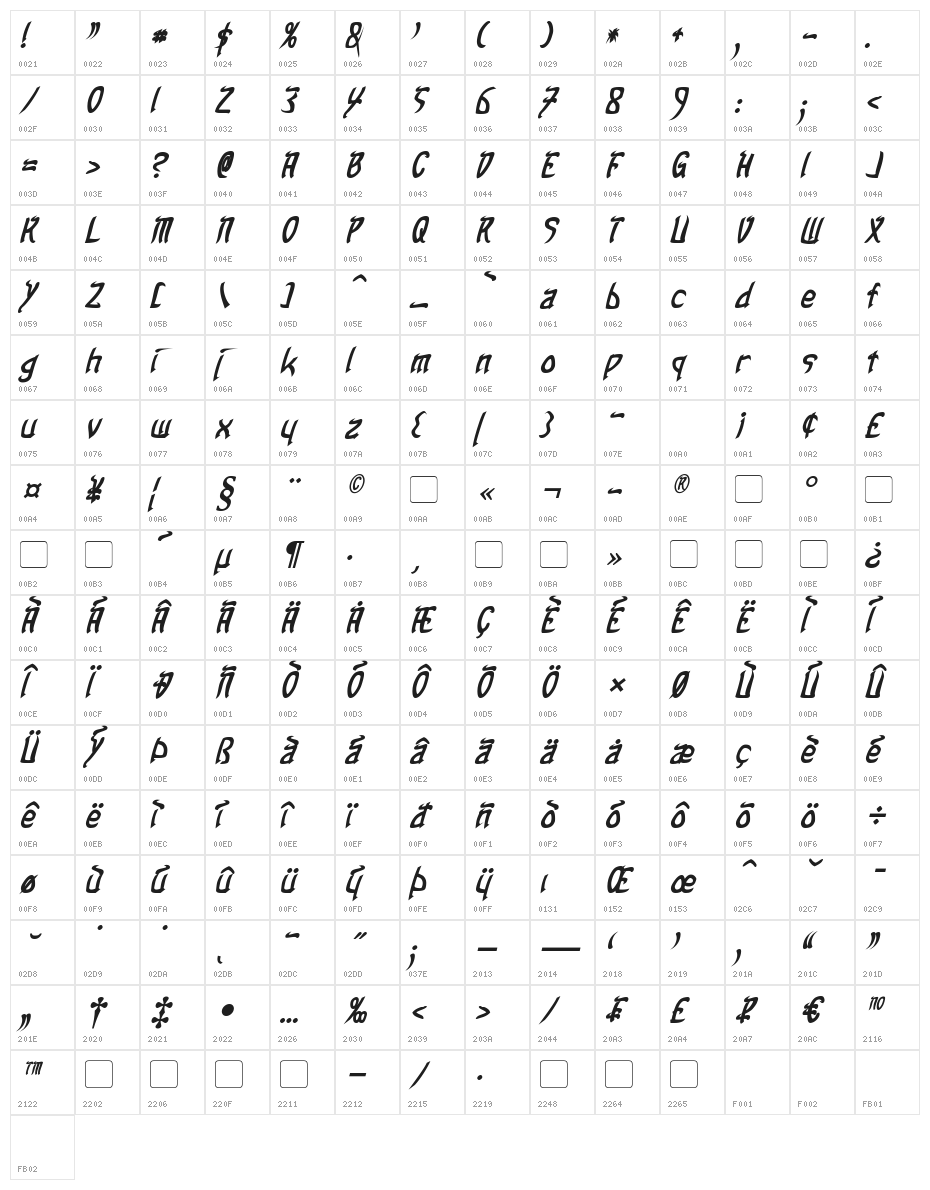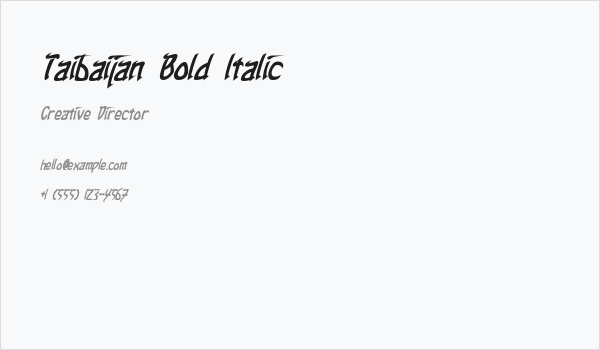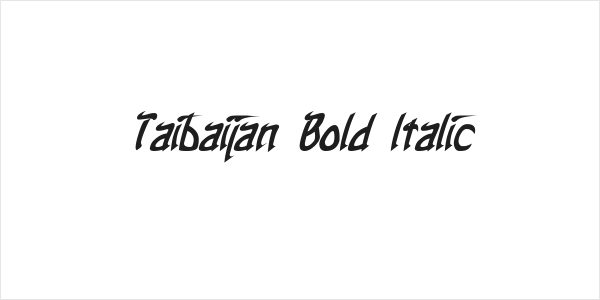
Taibaijan Bold Italic Font
Taibaijan Bold Italic Description
This font exhibits a bold and italicized style with a dynamic and flowing appearance. The characters are designed with a strong slant, giving them a sense of movement and energy. The strokes are thick and consistent, contributing to the boldness of the font. The uppercase letters are particularly striking, with sharp angles and dramatic curves. The lowercase letters maintain the same energetic style, ensuring readability while adding a touch of flair. The numerals are equally bold, matching the overall aesthetic of the alphabet. Special characters are included, maintaining the same stylistic elements, making this font versatile for various uses.
Proposed ProjectsIdeal for branding, posters, headlines, and any project requiring a bold, energetic typeface.